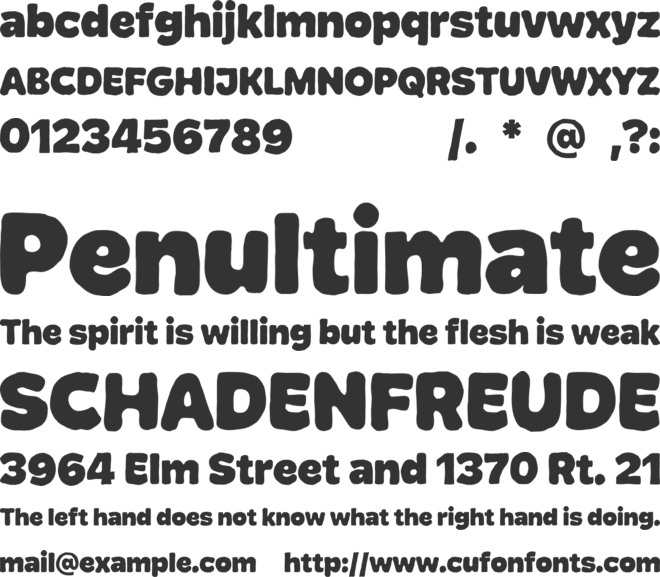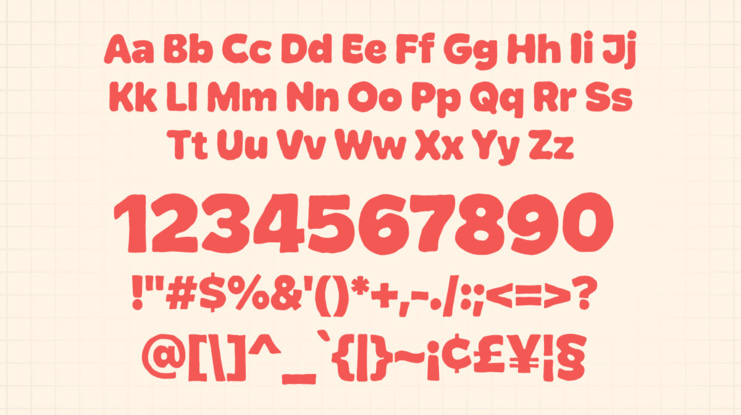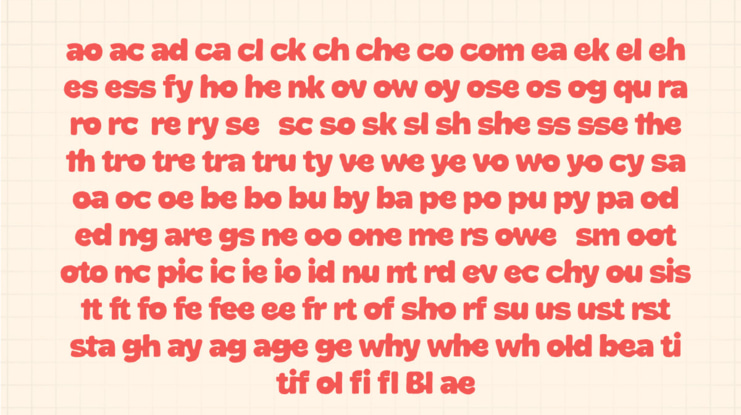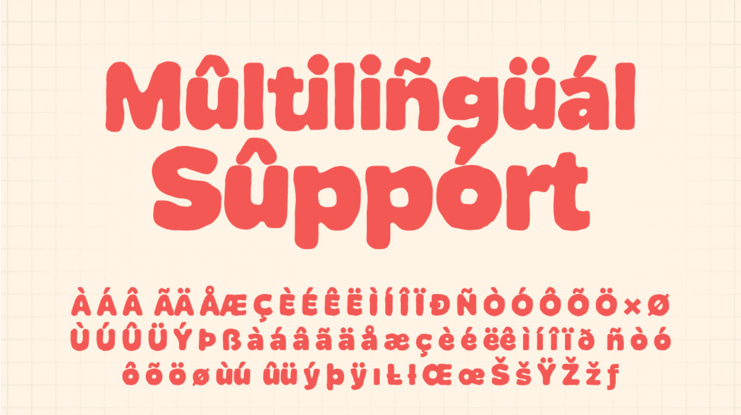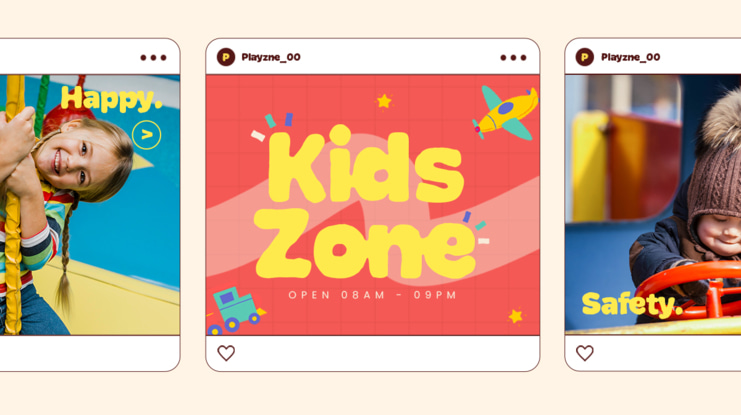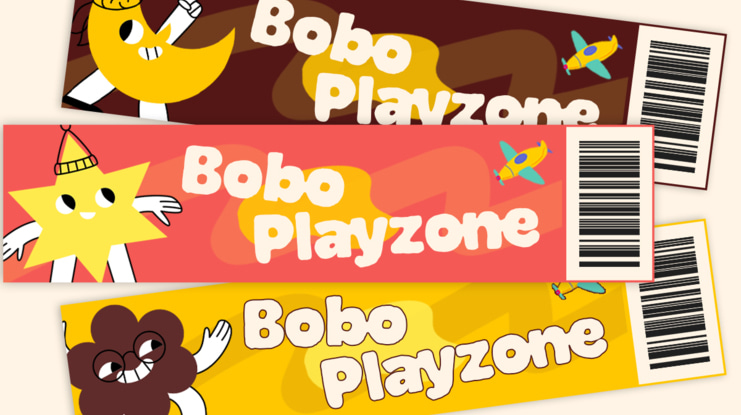
Blone Font
Blone is a powerful bold display font crafted to make a strong and confident visual statement. Designed with thick letterforms, solid structure, and modern proportions, Blone delivers high-impact typography that instantly grabs attention. Its bold personality makes it the perfect choice for designers who want their headlines to stand out clearly and memorably.